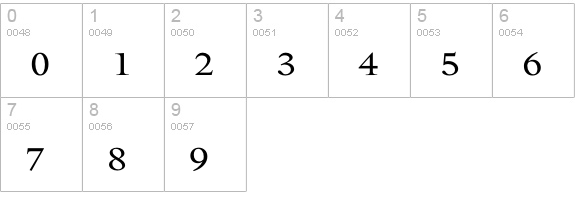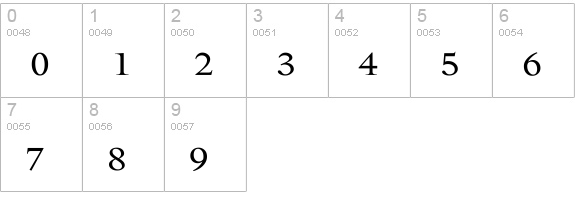
Steinbeck Obl Font Details
Steinbeck Obl font is a unique and elegant typeface that exudes a sense of sophistication and modernity. With its clean lines and geometric shapes, this font is perfect for a variety of design projects, from branding to editorial design. The sleek and stylish appearance of Steinbeck Obl font makes it a versatile choice for both print and digital applications. Best of all, Steinbeck Obl font is available for free download at FontsMarket.com. This means that you can easily access and use this stunning font in your projects without any cost. Don't miss out on the opportunity to enhance your designs with the timeless beauty of Steinbeck Obl font. Download it today and elevate your typography game to new heights.